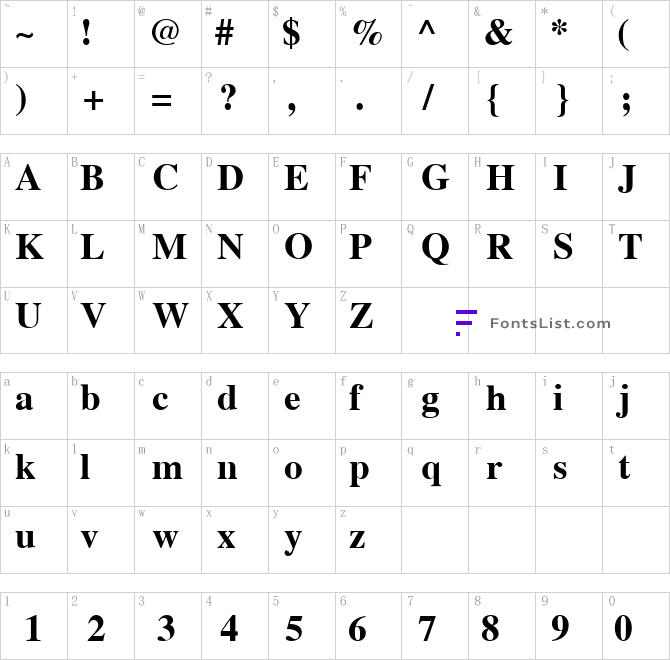
- Font Name:Cardiff
- Subfamily:DTP-Cardiff Bold
- Full Name:Cardiff Bold
Cardiff-Bold.ttf is a very beautiful artistic font, Cardiff-Bold.ttf is widely used in the design and printing of various books and pictures,Cardiff-Bold.ttf has a strong visual impact,Cardiff-Bold.ttf is a commonly used font in newspapers, magazines and books, and is used in posters, e-commerce Poster design, store design, logo design, font design and other fields.Cardiff-Bold.